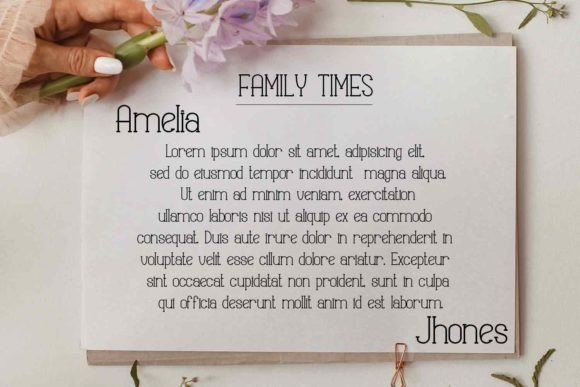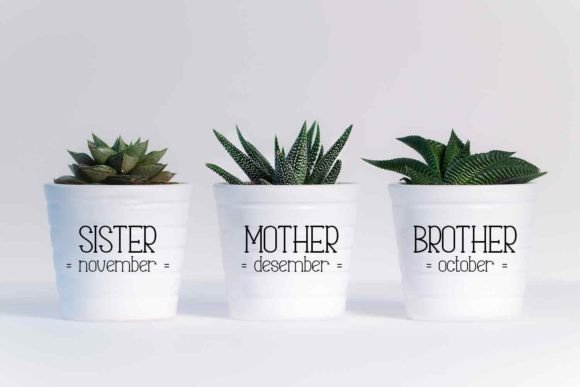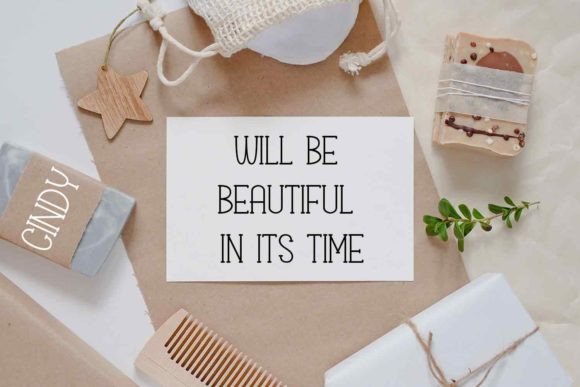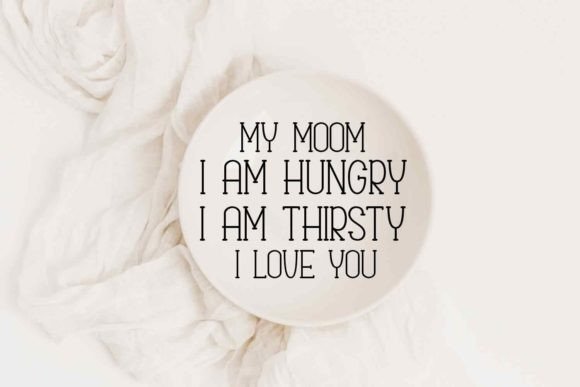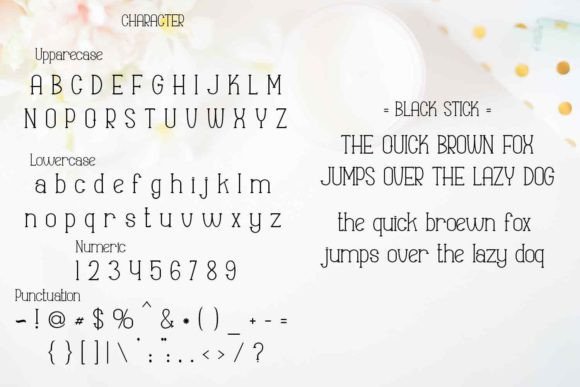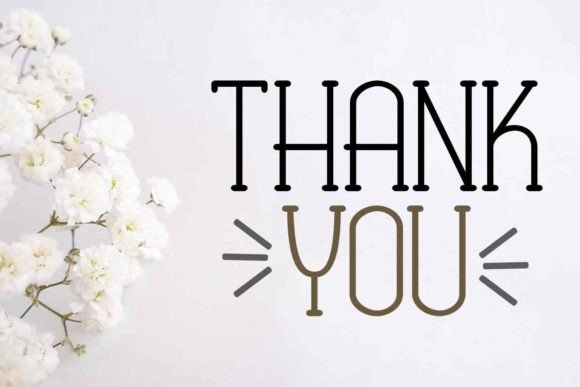
The Ultimate Guide to Black Stick Font: Adding a Dash of Whimsy to Your Designs
I’ll never forget the time I was working on a project for a children’s birthday party invitation. I had the design concept all sorted out, but I was stuck on finding the perfect font. I wanted something that would appeal to kids and adults alike, something fun and playful, yet still professional enough to take the design seriously. That’s when I stumbled upon Black Stick Font. It was love at first sight! 💕
An Honest Review of Black Stick Font
Black Stick Font is a fun and playful display font that has become a staple in my design toolkit. Here’s what I love about it:
- ✨ Unique and quirky design that adds a touch of personality to any project
- 💥 Perfect for headlines, titles, and short paragraphs of text
- 🎉 Available in a range of weights and styles to suit different design needs
Of course, no font is perfect, and Black Stick Font does have a few quirks:
- 🤔 Some users may find the font a bit too playful for certain design projects
- ⚠️ Limited support for non-English characters and special glyphs
The Backstory of Black Stick Font
Black Stick Font was designed by a team of creatives who wanted to create a font that would bring a smile to people’s faces. Inspired by childhood memories of playing with sticks and drawing on the sidewalk, they crafted a font that’s both playful and professional.
| What is Black Stick Font best used for? | Black Stick Font is perfect for headlines, titles, and short paragraphs of text in creative projects, such as party invitations, posters, and social media graphics. |